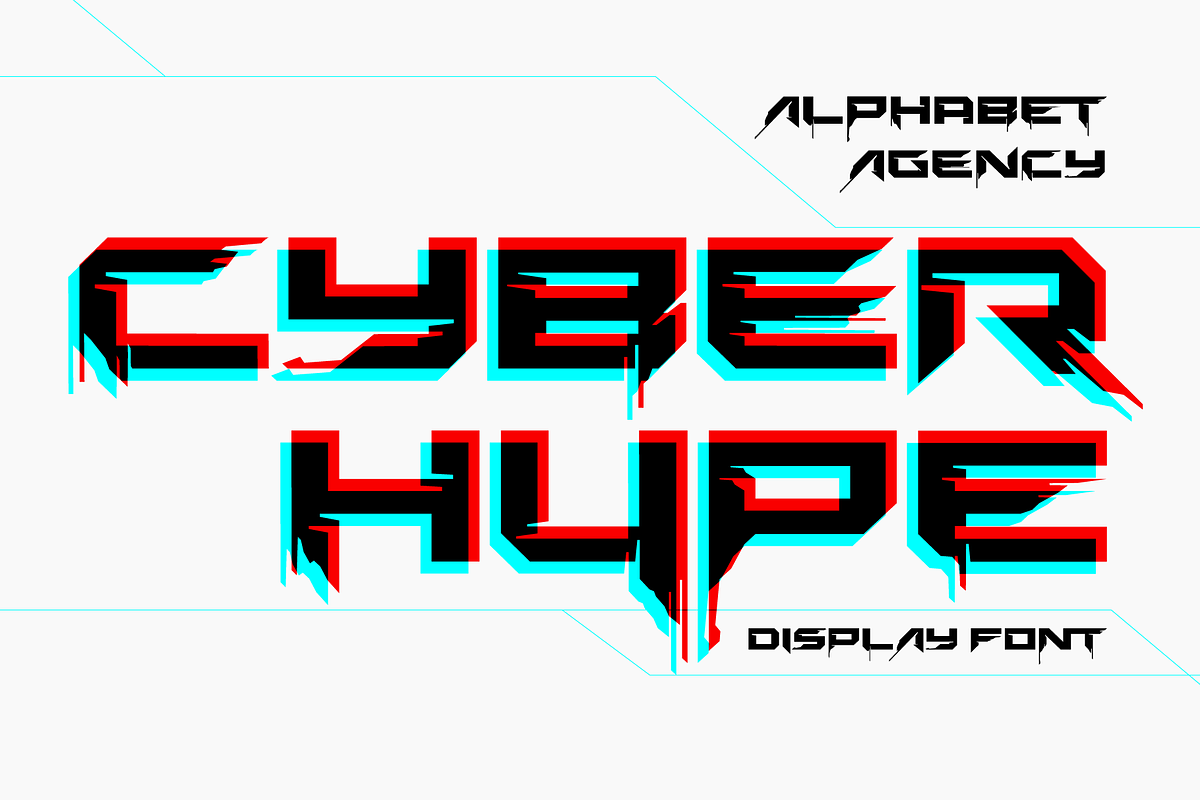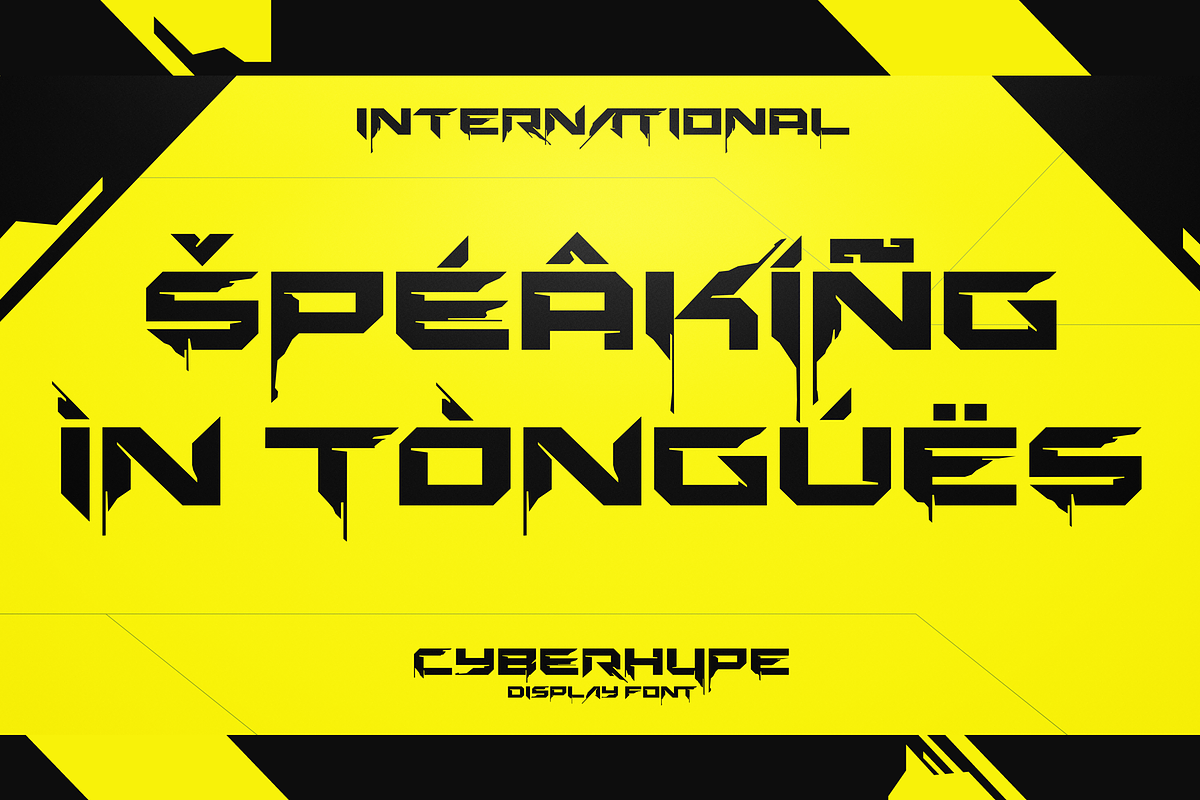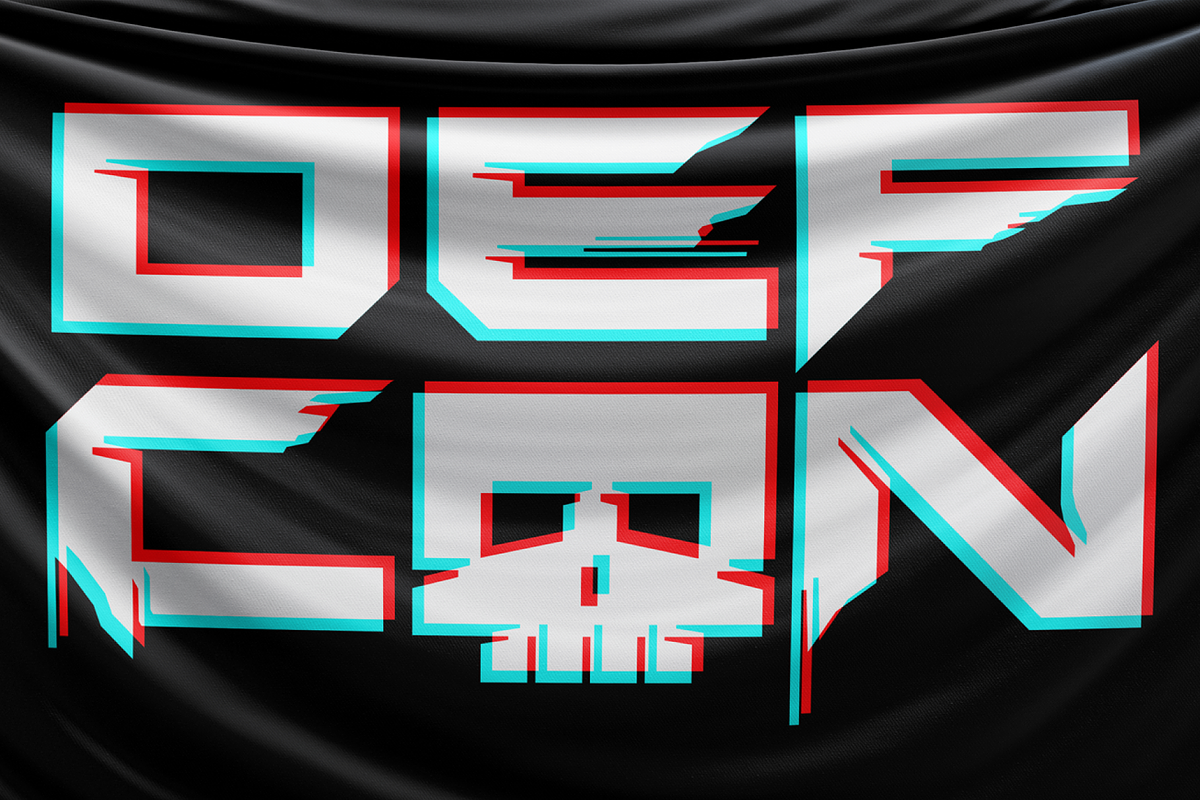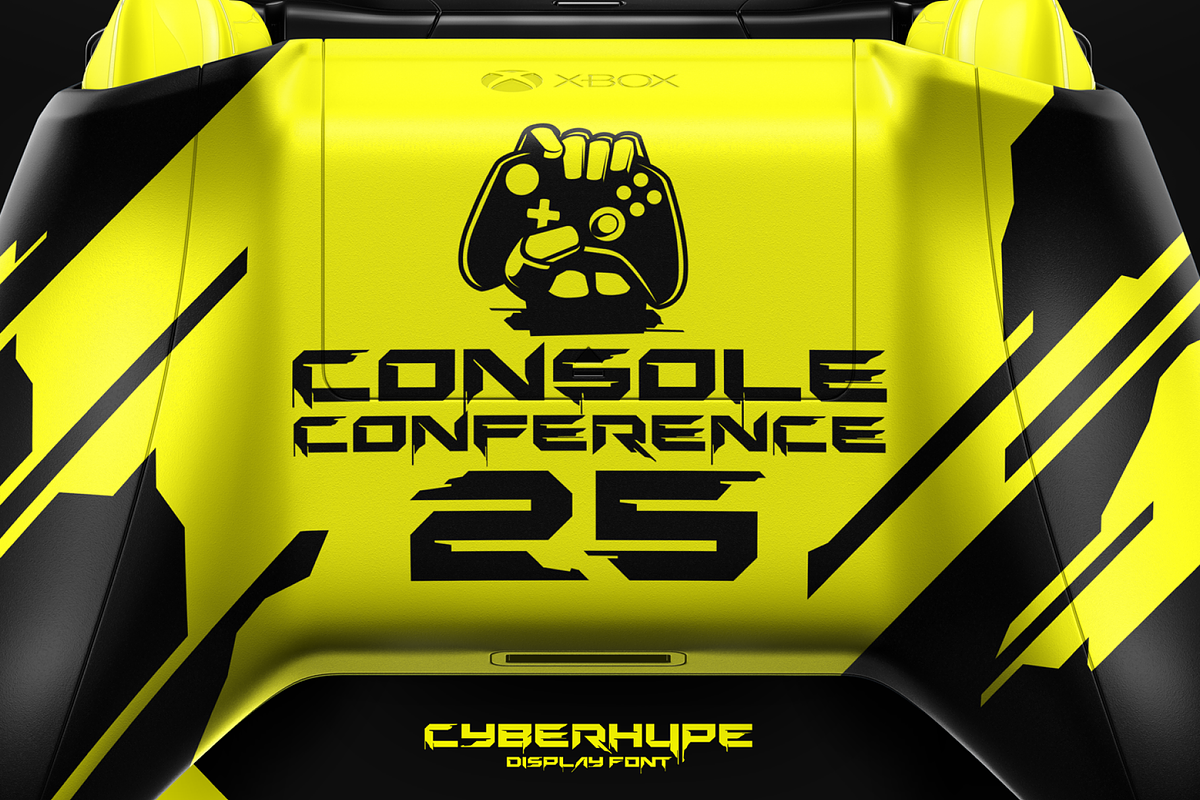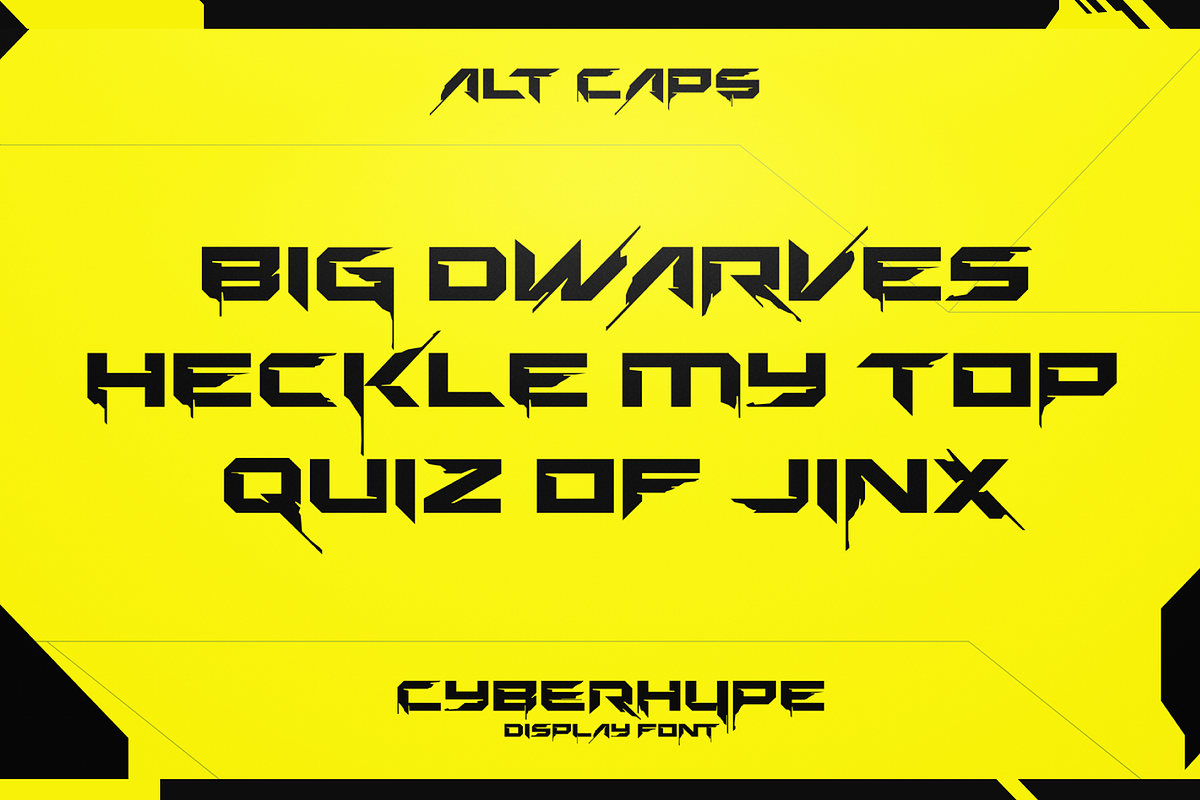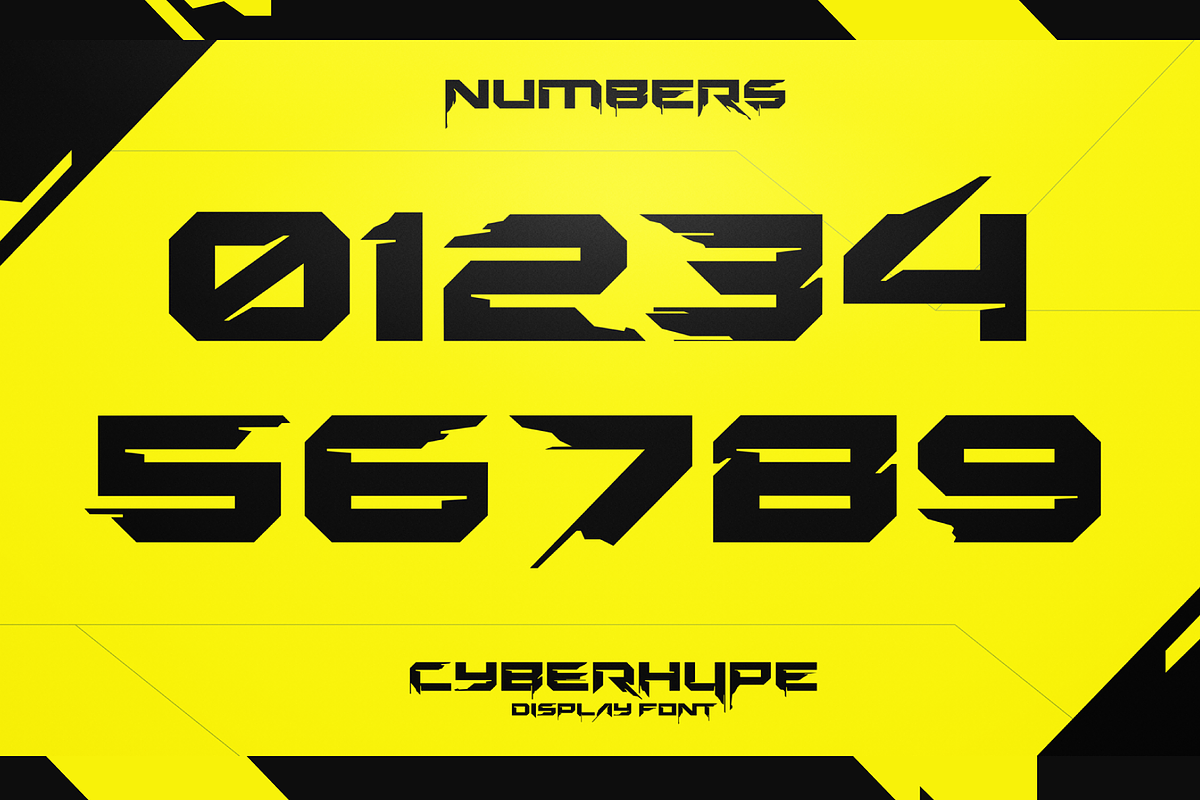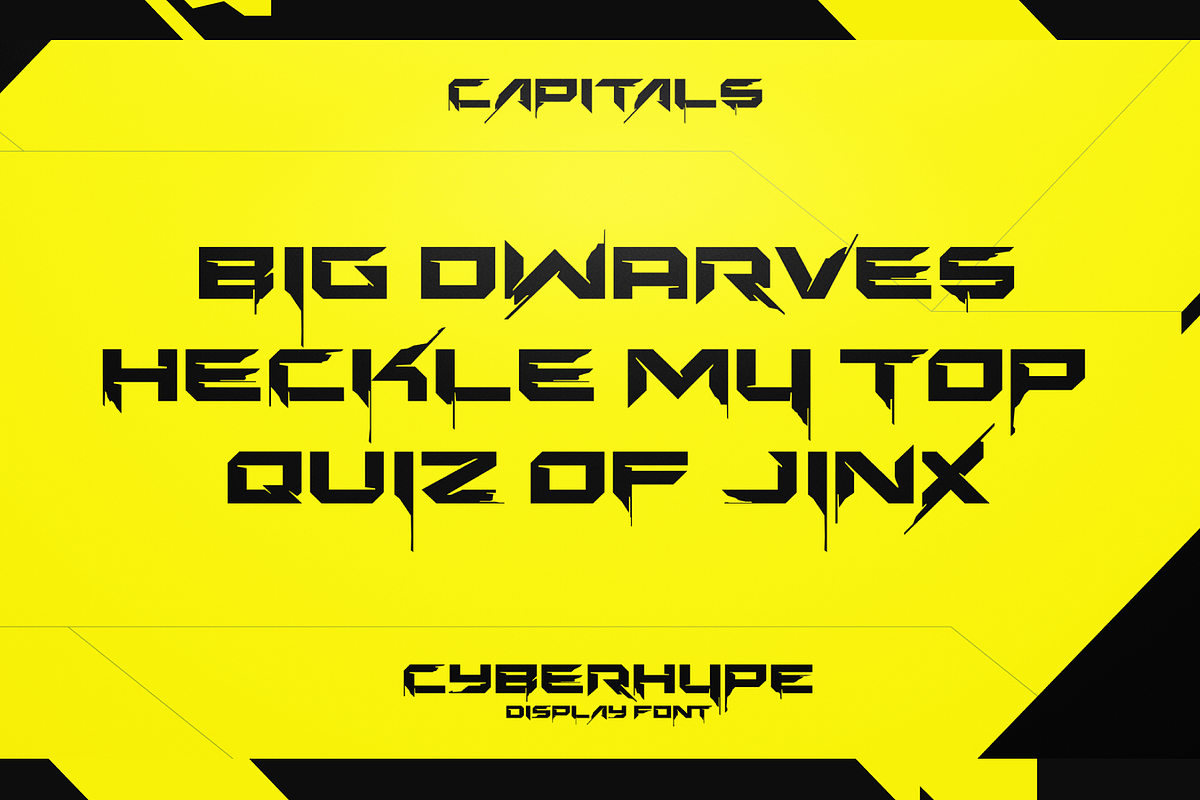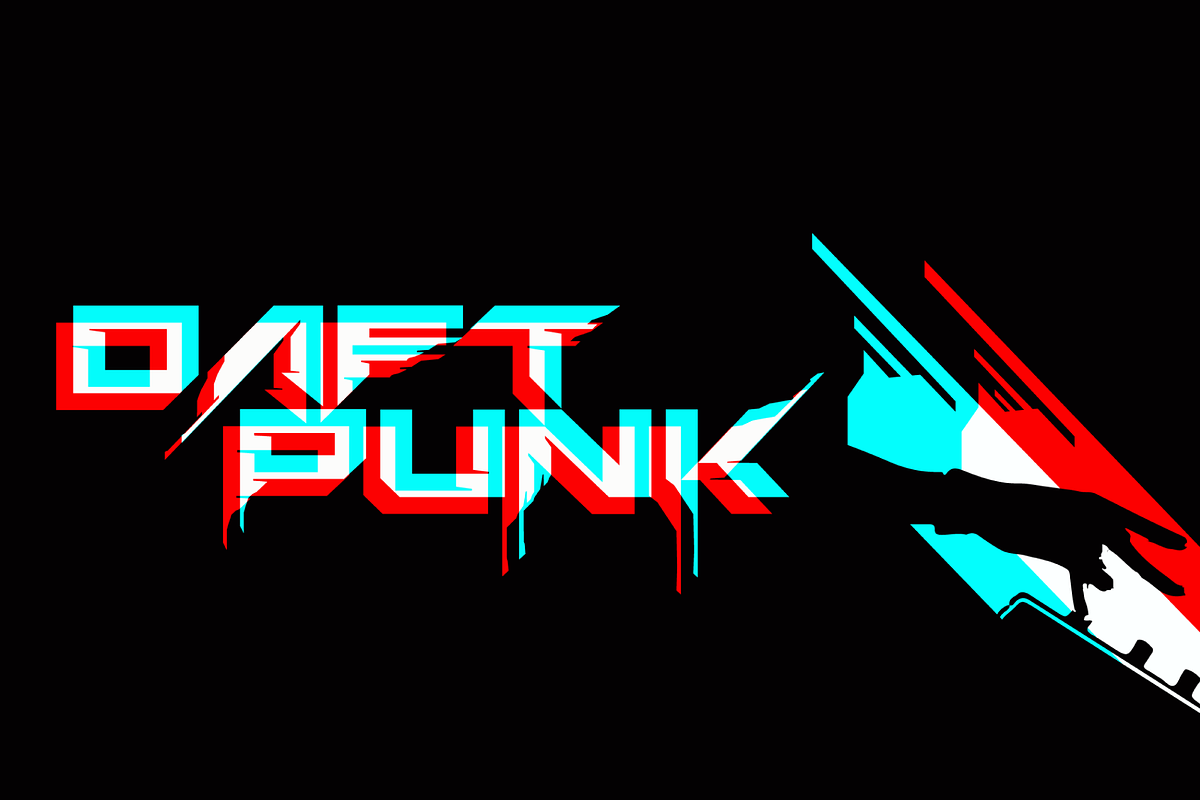
CYBERHYPE FONT
Alphabet Agency proudly presents Cyberhype. Cyberhype is a bold display font with a glitched look. There are two options for each letter.
CYBERHYPE FONT by Alphabet Agency fits naturally into Branding, posters, packaging, typography.